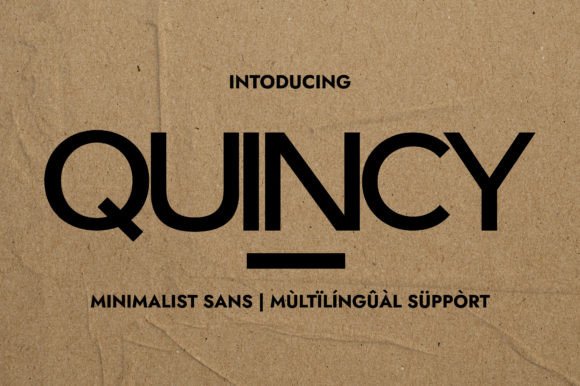
Behold Quincy Font, the epitome of modern sans serif typography, meticulously crafted by Minimalistartstudio to cater to your Shopify website's design aspirations. With its captivating wide grotesque letterforms and minimal spacing, Quincy Font commands attention and leaves an indelible impression.
Inspired by the rigorous principles of Swiss typography, Quincy Font exudes a sense of order, clarity, and functionality. Its clean lines and geometric shapes create a visually pleasing aesthetic that complements a wide range of design styles.
Unleash your creativity and let Quincy Font elevate your Shopify website to new heights of sophistication. Its versatility allows you to effortlessly create stunning headlines, captivating body text, and alluring call-to-action buttons that will resonate with your audience and drive conversions.
Imagine your website adorned with Quincy Font's bold and distinctive characters, conveying your brand message with unwavering clarity and impact. Let your products and services shine, as Quincy Font provides the perfect backdrop for showcasing their unique qualities and compelling value propositions.
With Quincy Font adorning your Shopify website, you'll capture the attention of potential customers, establish a strong brand identity, and leave a lasting impression that will keep them coming back for more.